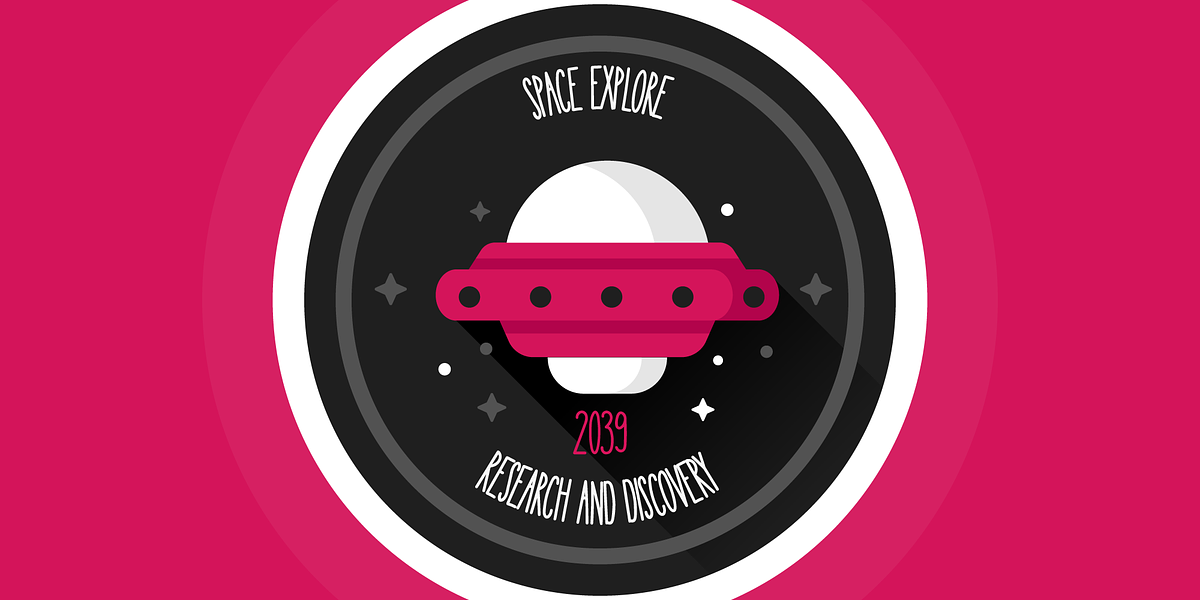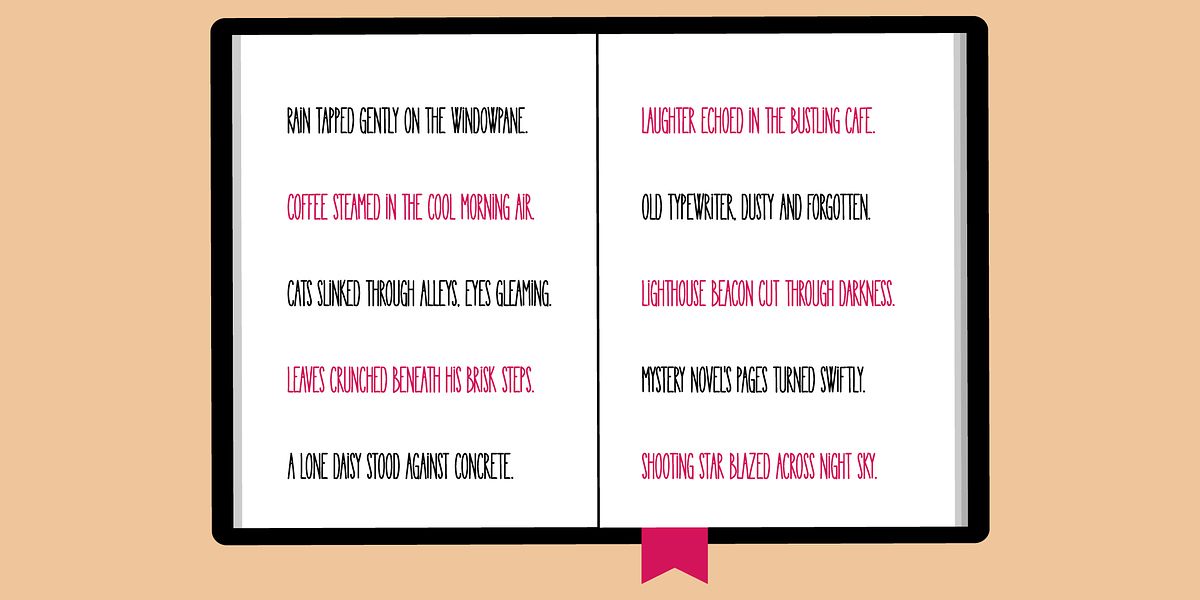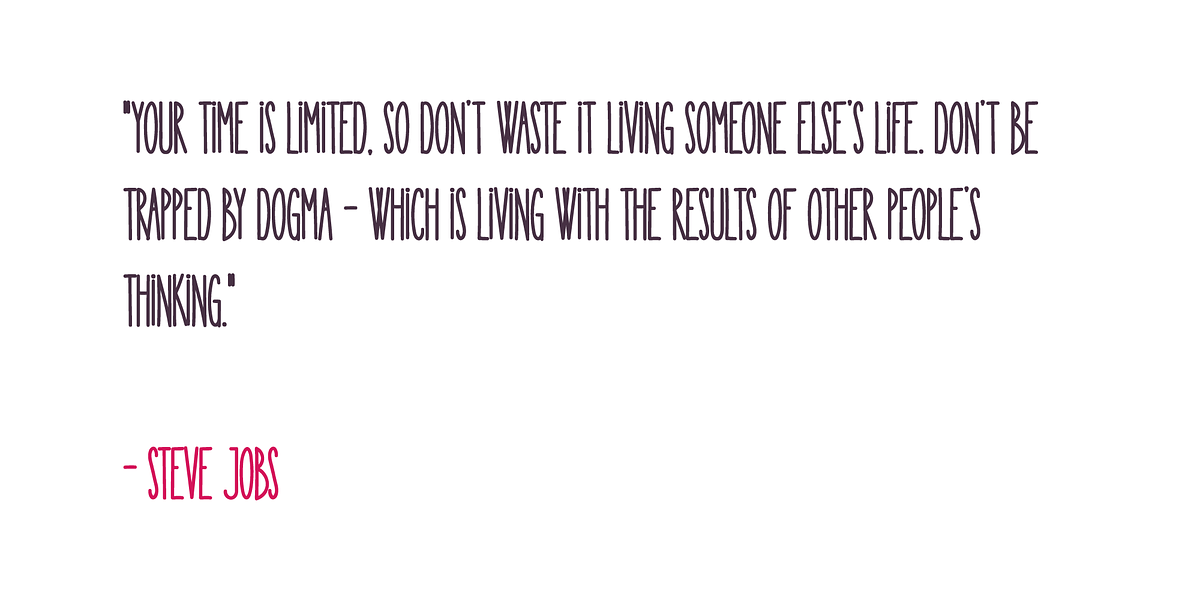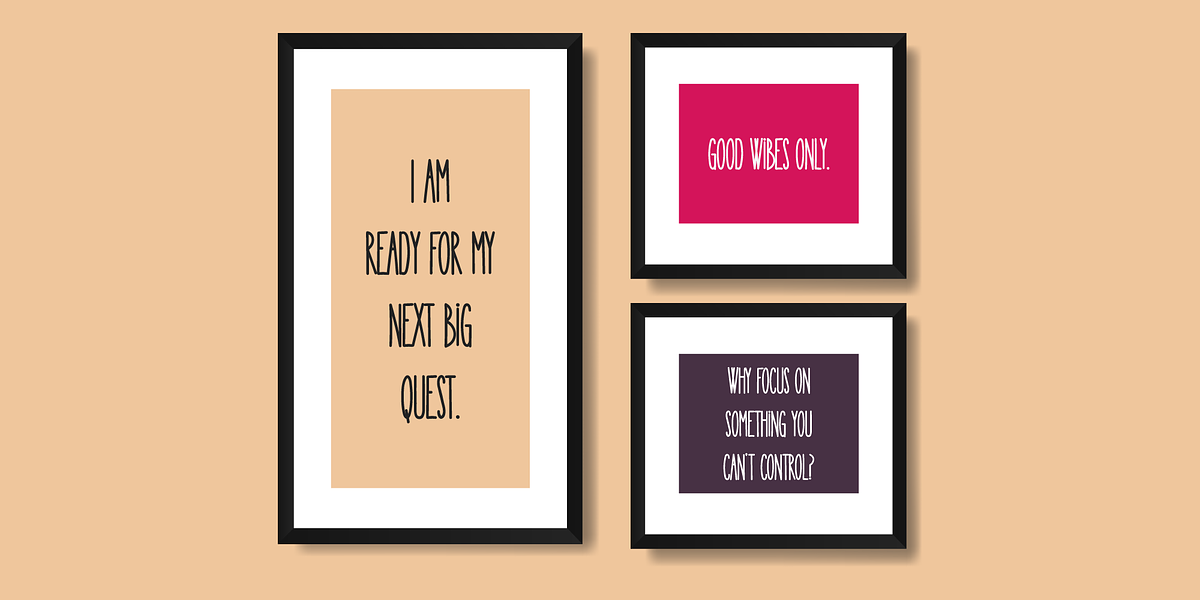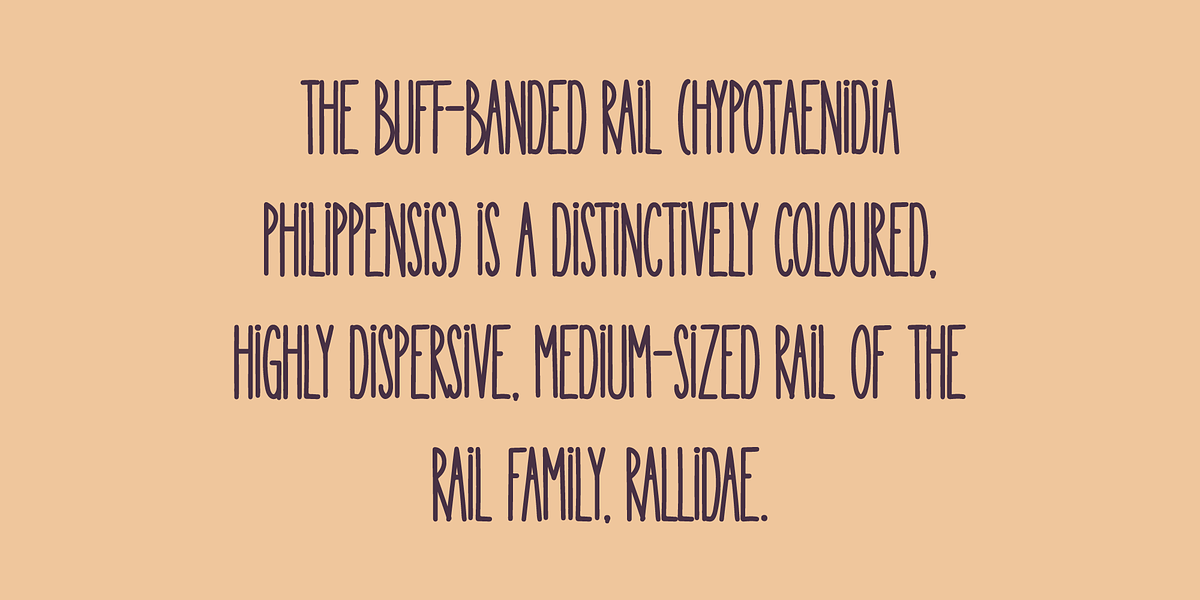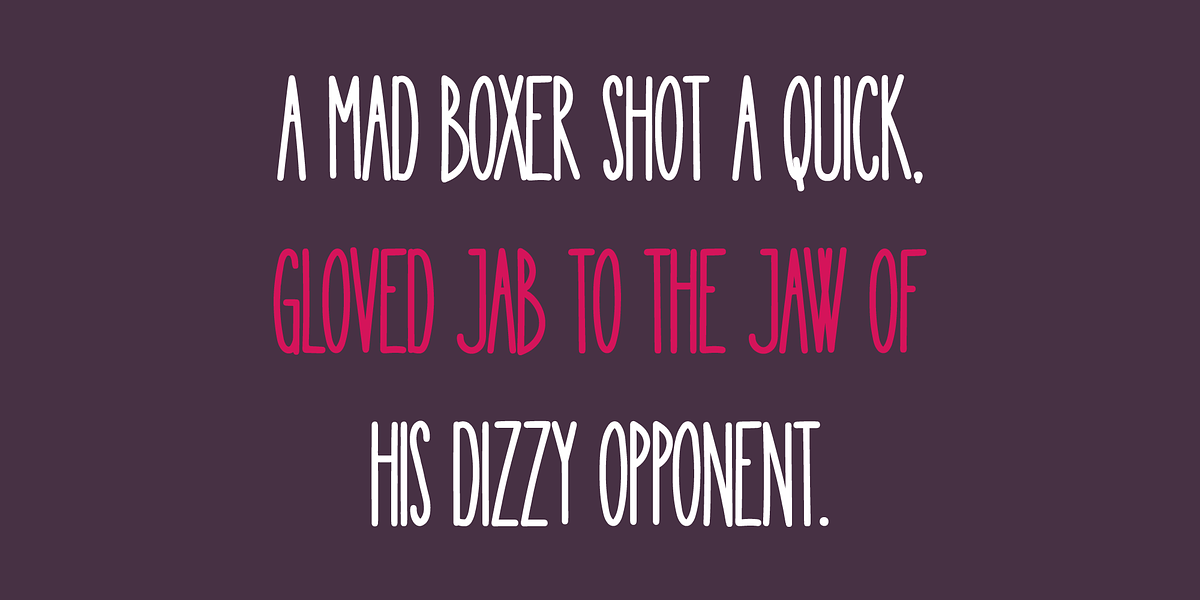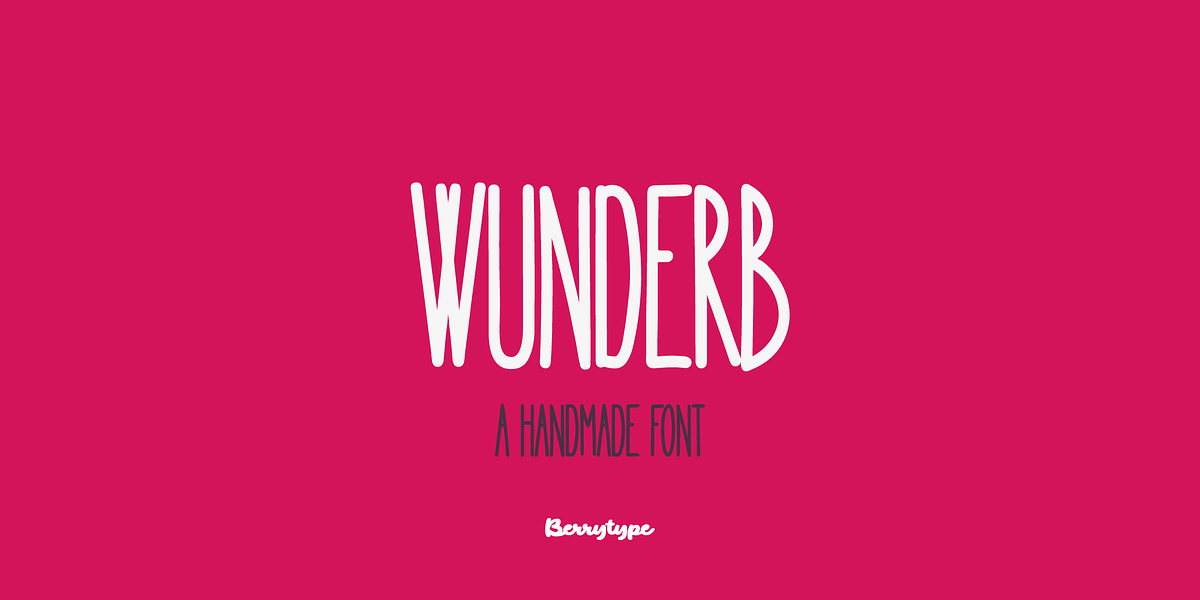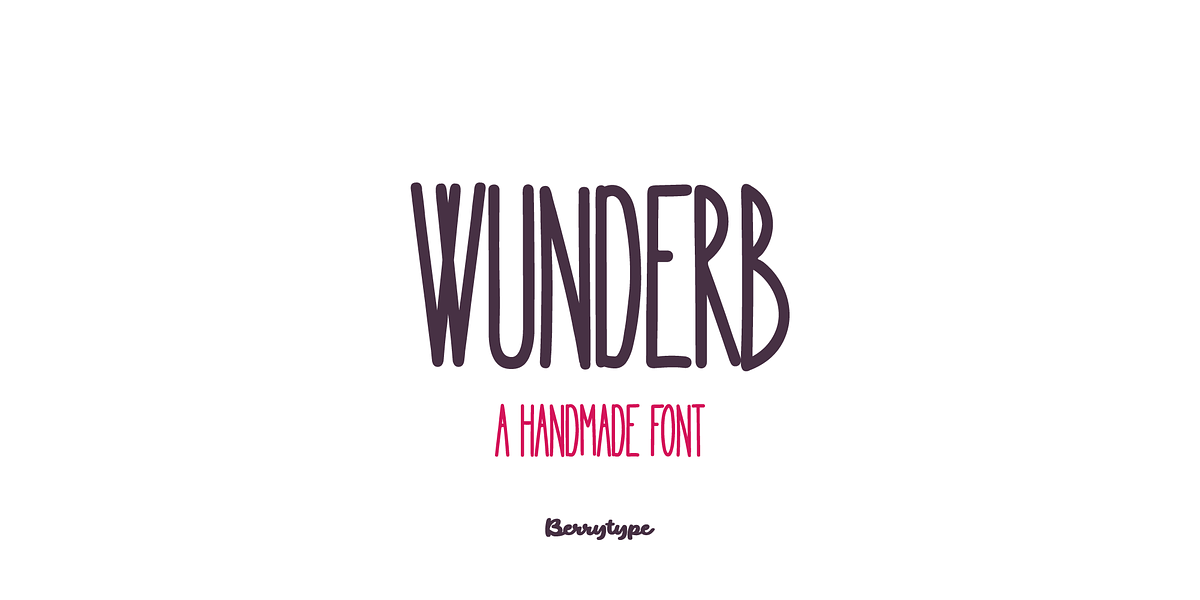
Wunderb
Wunderb is a modern hand-drawn display font designed for versatility. Its key features include excellent kerning and full Cyrillic language support.